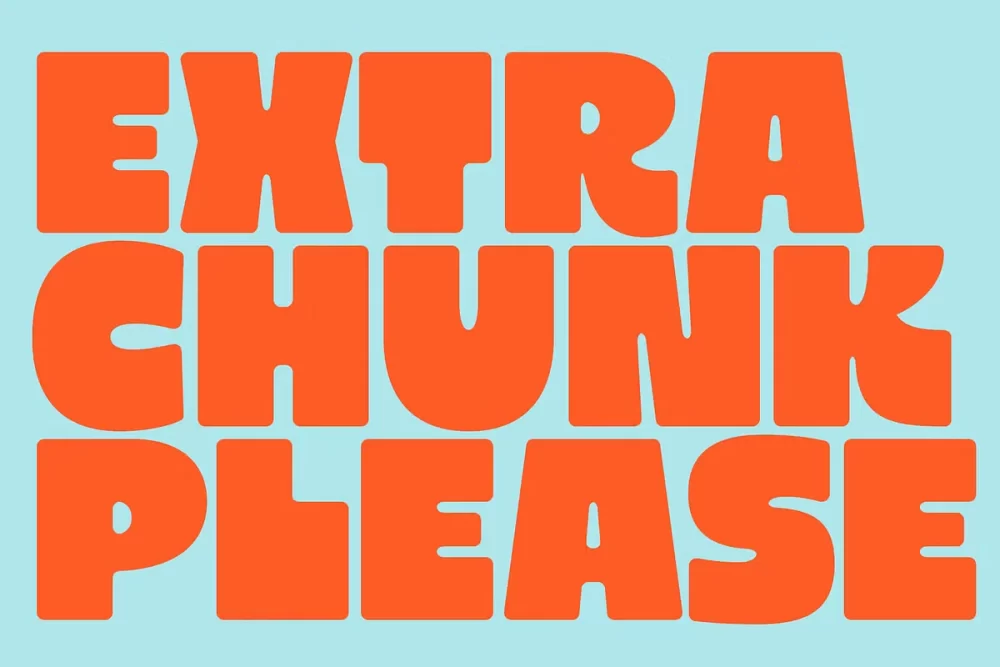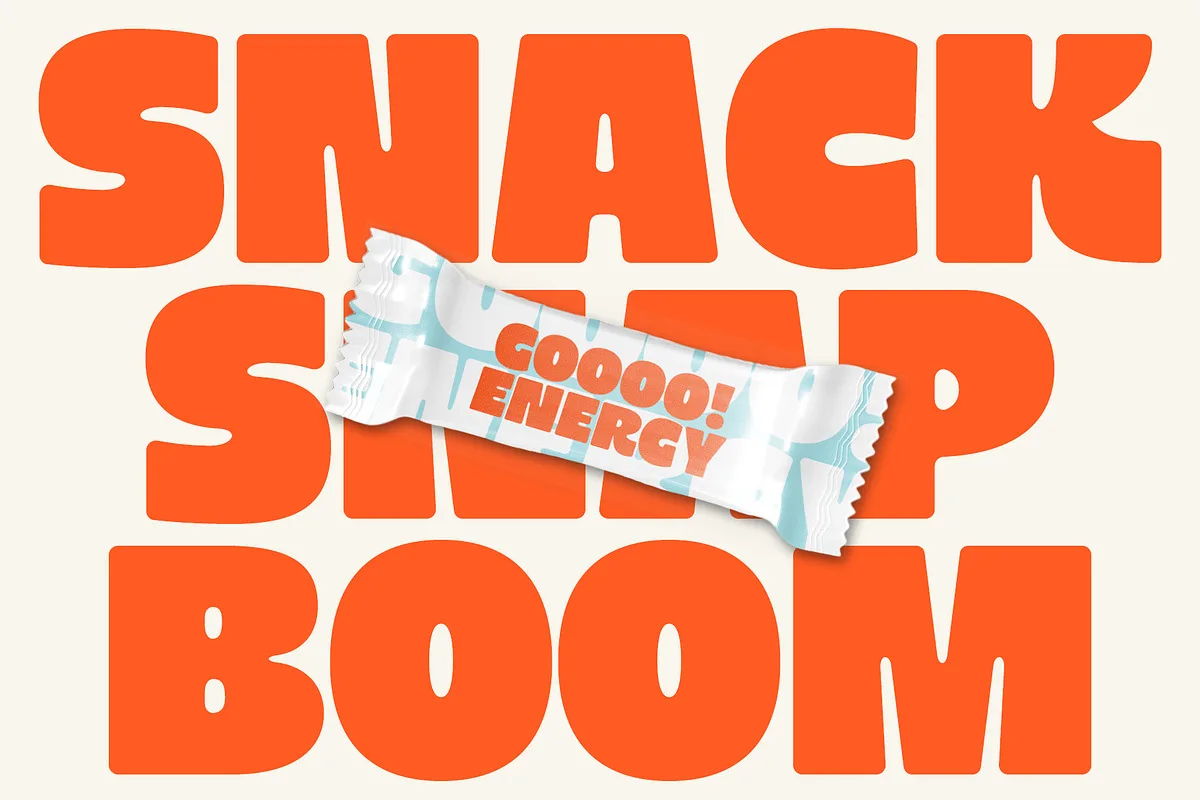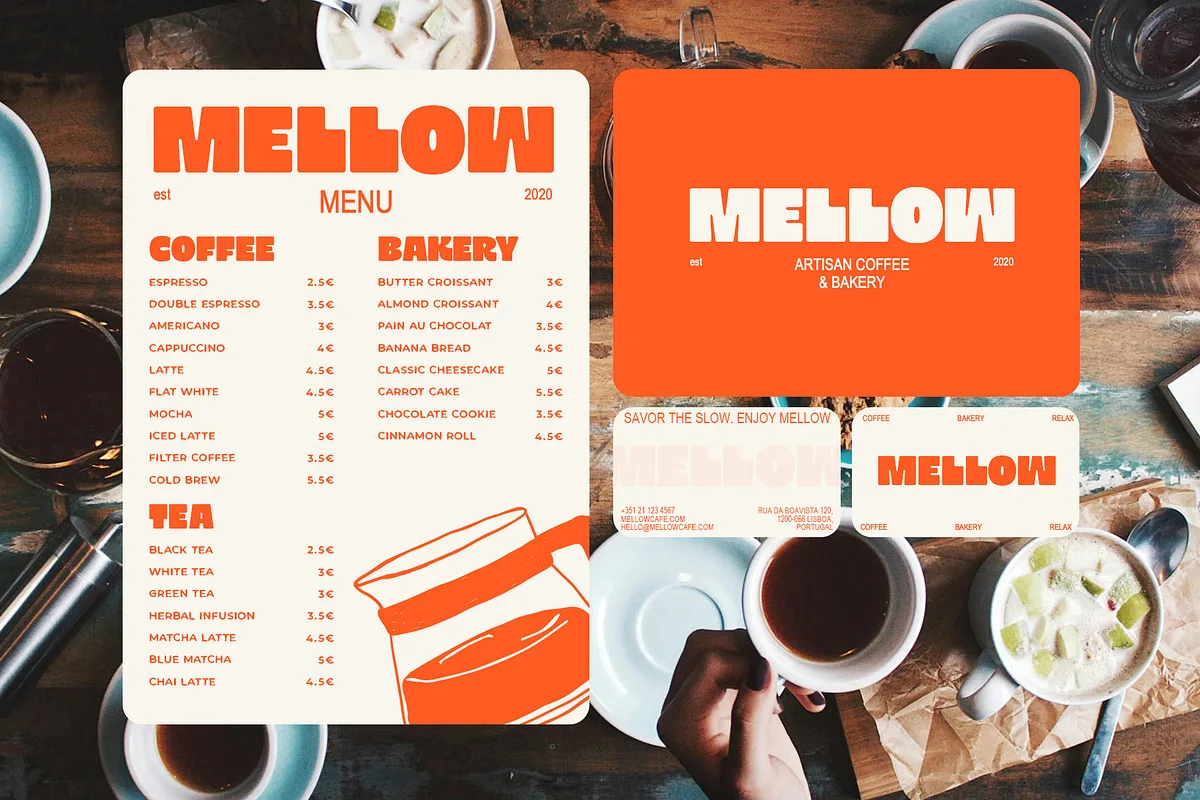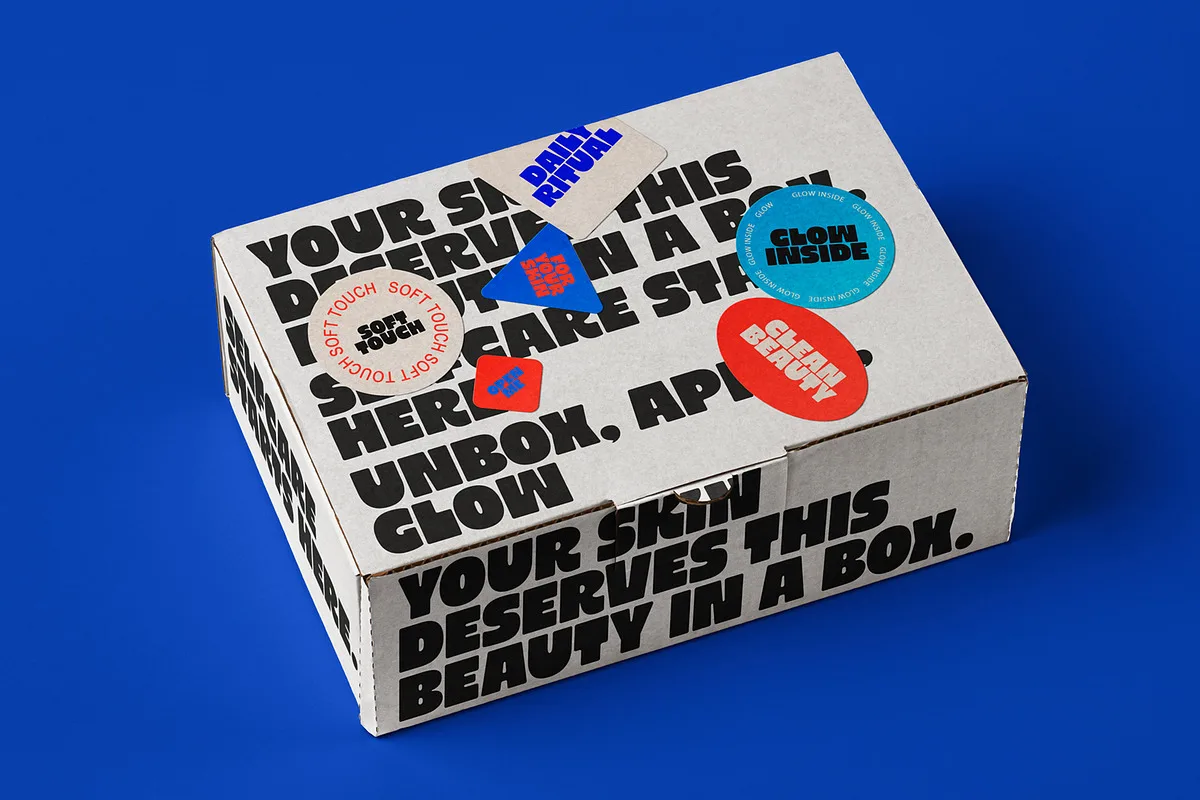
Extra Chunk Please Font
Extra Chunk Please is a modern display font that blends bold geometry with playful minimalism. With rounded edges and strong character design, it’s ideal for clean, typography-focused layouts.